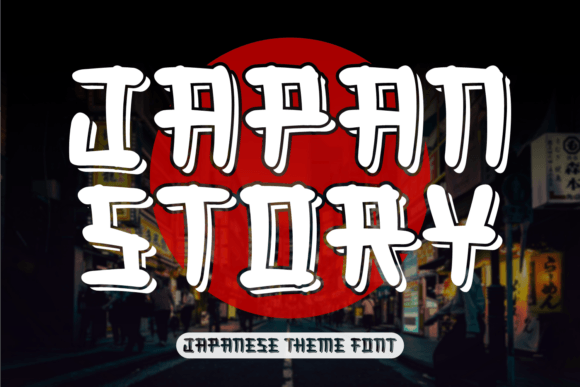
In a world of digital monotony, unleash your creativity with Japan Story Font, a captivating display font that breathes life into your designs. Inspired by the ancient allure of Japan, this font family, meticulously crafted by Faris (7NTypes), is a symphony of elegance and tradition.
Japan Story Font is not just a collection of characters; it's an artistic journey through the heart of Japan. Each stroke, each curve, each detail is a testament to the country's rich history and culture. The font's intricate design captures the essence of Japanese calligraphy, merging the beauty of the past with the vibrancy of the present.
With Japan Story Font, you're not just downloading a font; you're embracing a piece of Japanese heritage. Its characters dance across the page like cherry blossoms carried by a gentle breeze, evoking a sense of tranquility and beauty. Let your designs flourish with the grace and charm of Japan.
This font is a treasure trove of versatility, seamlessly adapting to a myriad of design projects. Whether you're crafting eye-catching headlines, captivating logos, or enchanting invitations, Japan Story Font rises to the occasion. Its ability to effortlessly blend traditional Japanese aesthetics with contemporary design trends makes it the perfect choice for modern creatives seeking a touch of timeless elegance.
Designers, artists, and creative visionaries, let Japan Story Font ignite your imagination. Let its intricate details and timeless beauty elevate your projects to new heights of sophistication. With Japan Story Font, your designs will speak volumes, captivating audiences with their unique blend of tradition and modernity.
Immerse yourself in the beauty of Japan and let your creativity run wild with Japan Story Font.